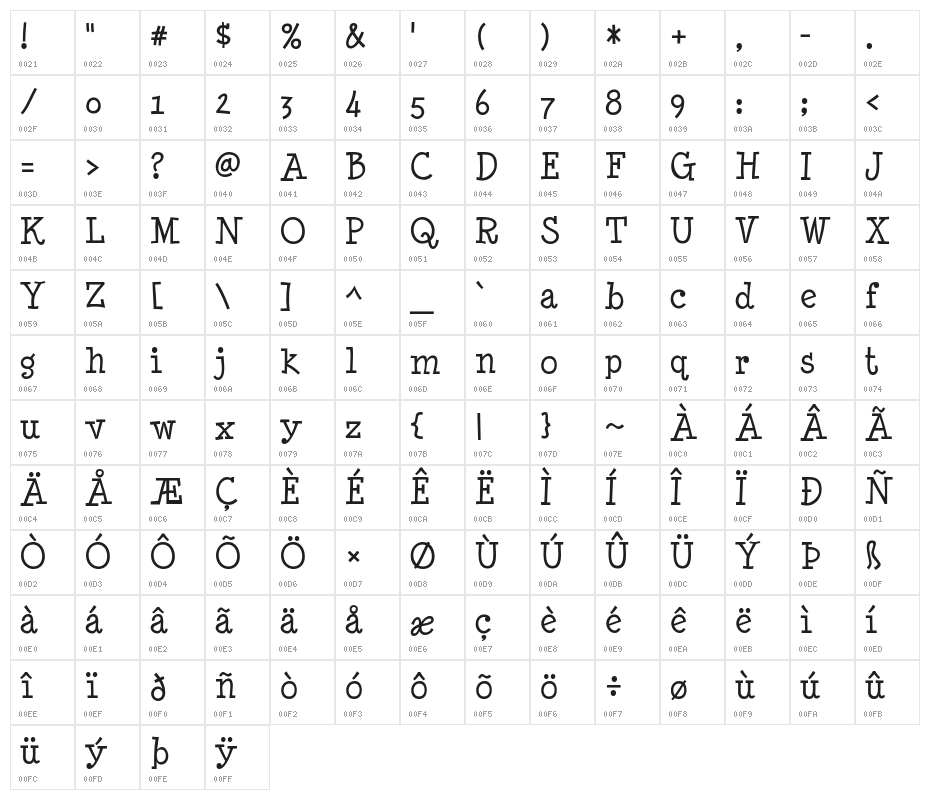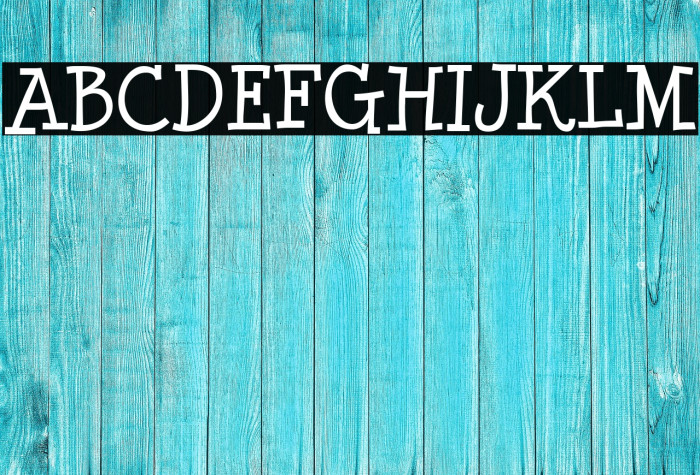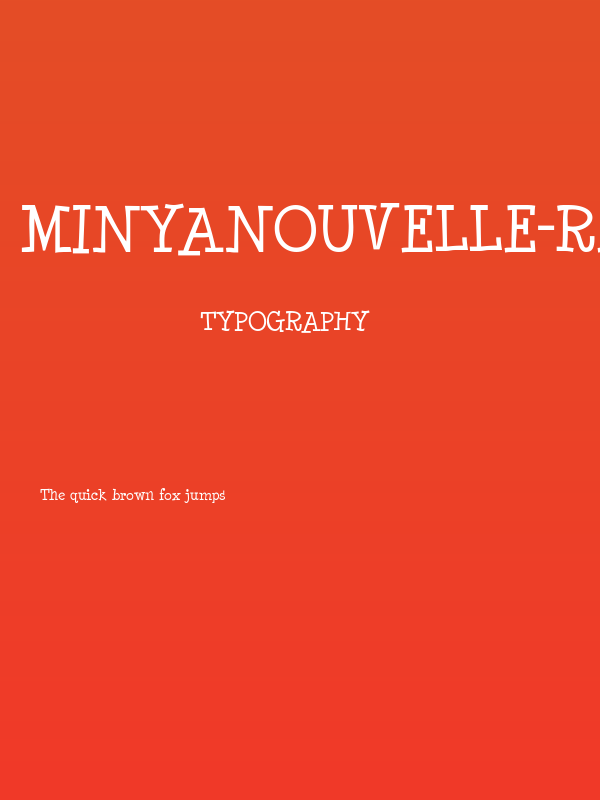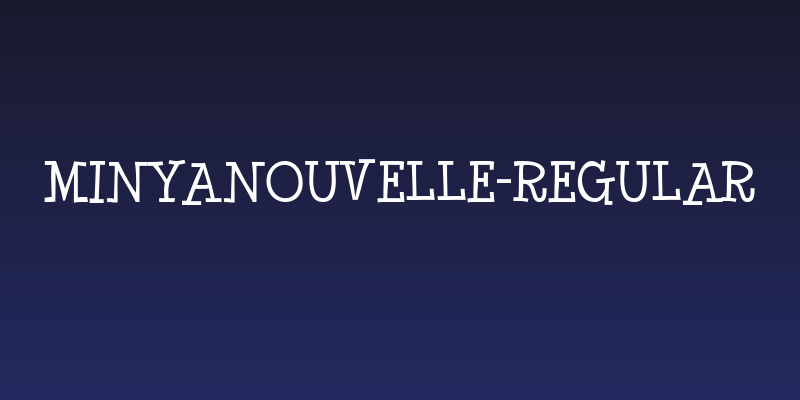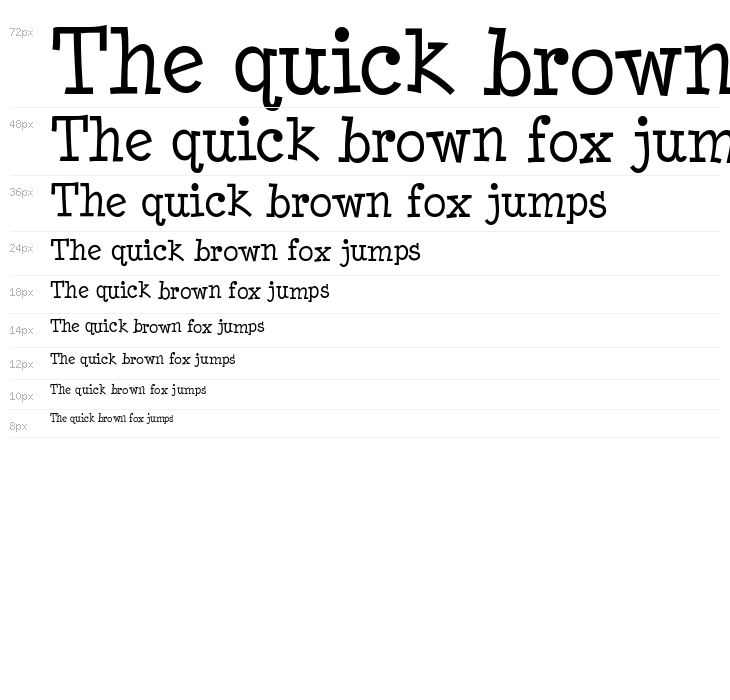
MinyaNouvelle-Regular Font
MinyaNouvelle-Regular Description
This font features a playful and whimsical design, characterized by its unique and slightly irregular strokes. The letters have a hand-drawn quality, with subtle curves and varying line thickness that add a sense of movement and energy. The uppercase letters are bold and prominent, while the lowercase letters maintain a consistent style with slightly exaggerated serifs. The numbers and special characters follow the same playful aesthetic, making the font suitable for creative and informal projects. Its distinct style makes it stand out, offering a fresh and modern take on traditional serif fonts.
| Overall Style | Playful, Modern |
| Proposed Projects | Ideal for children's books, creative branding, playful posters, and artistic invitations. |